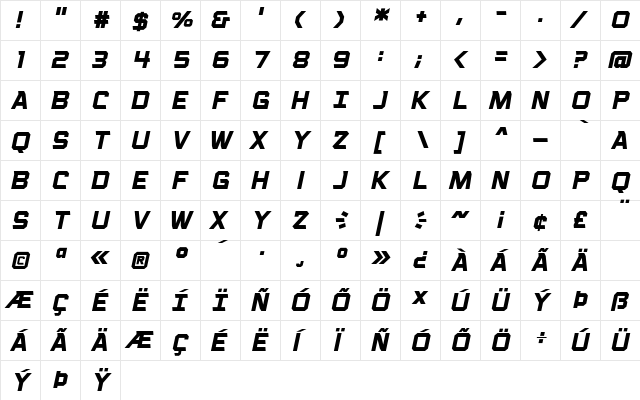
Voice Activated Caps BB Bold Italic Font Preview
| Foundry | Nate Piekos. Blambot.com |
| Designer | Nate Piekos |
Design Context for Voice Activated Caps BB Typeface
Voice Activated Caps BB takes a measured approach to typography — its balanced proportions and neutral character make it a reliable workhorse for both digital and print work. The slanted form adds forward momentum and visual energy. The heavy weight commands attention and anchors typographic hierarchies.
Pro Tip: Try Voice Activated Caps BB for annotation and caption copy alongside an upright companion — the contrast in angle creates a dynamic but ordered typographic system.